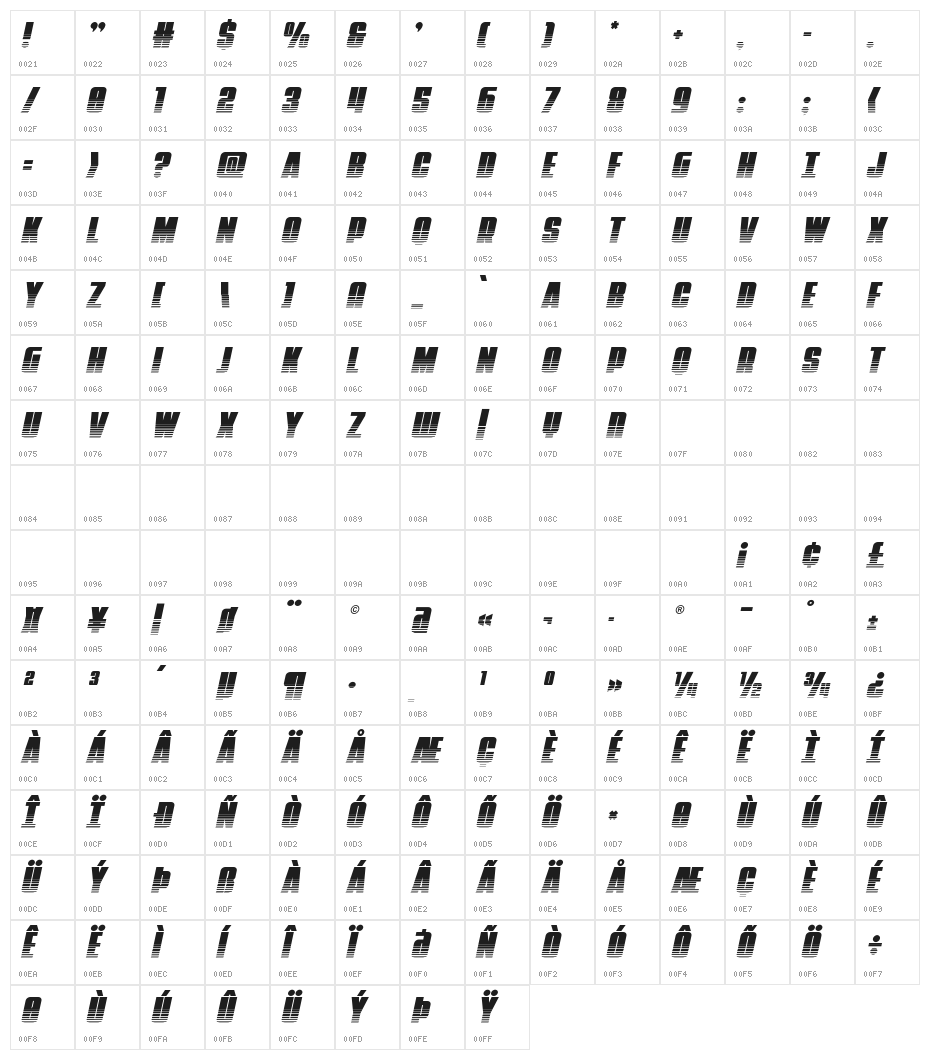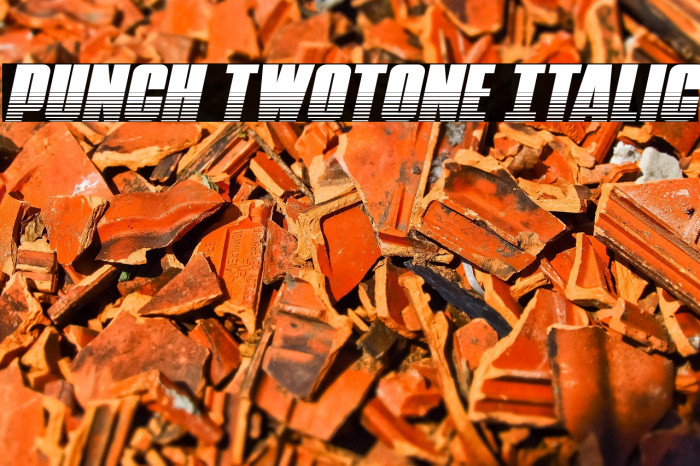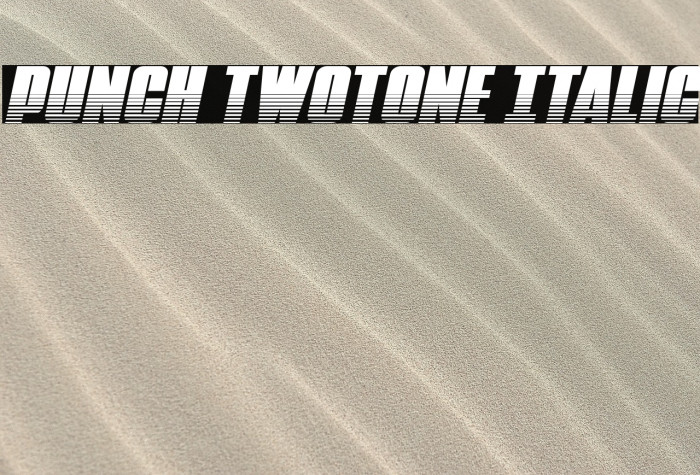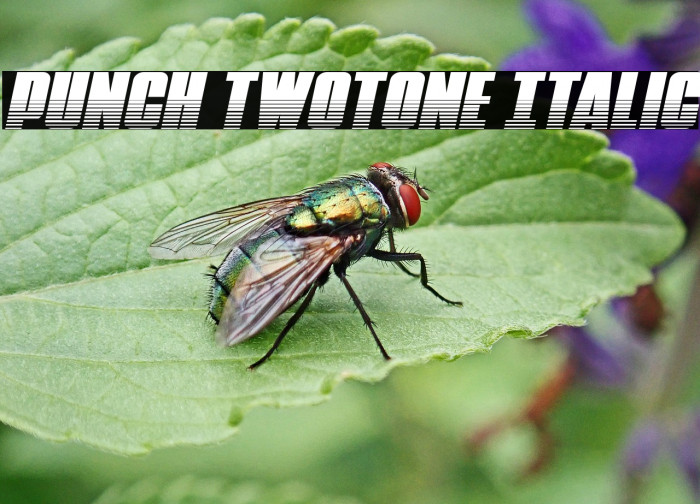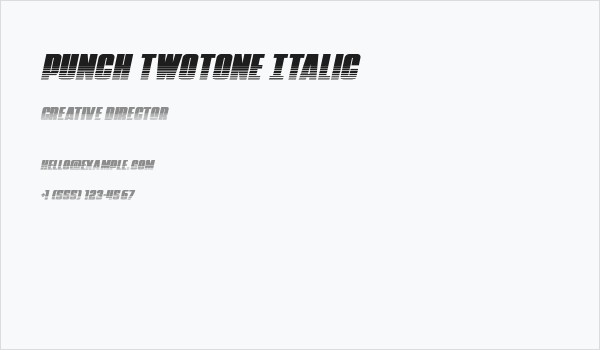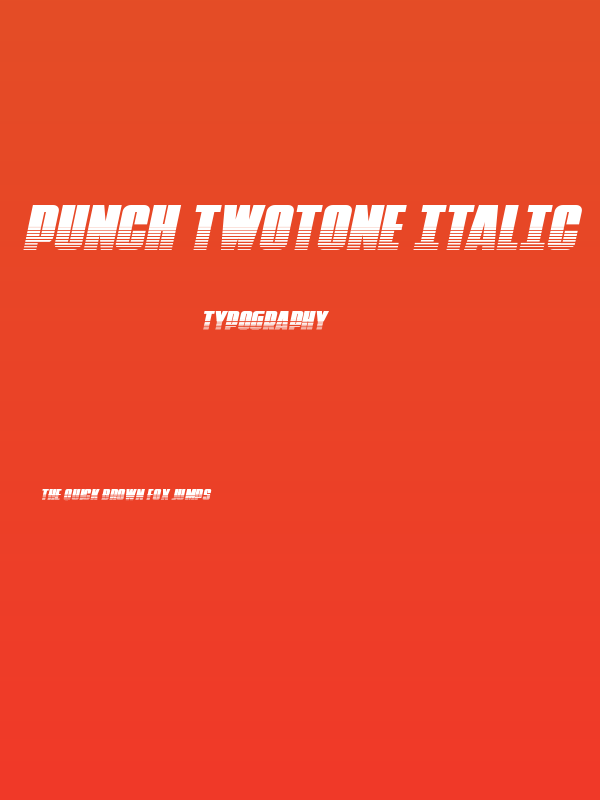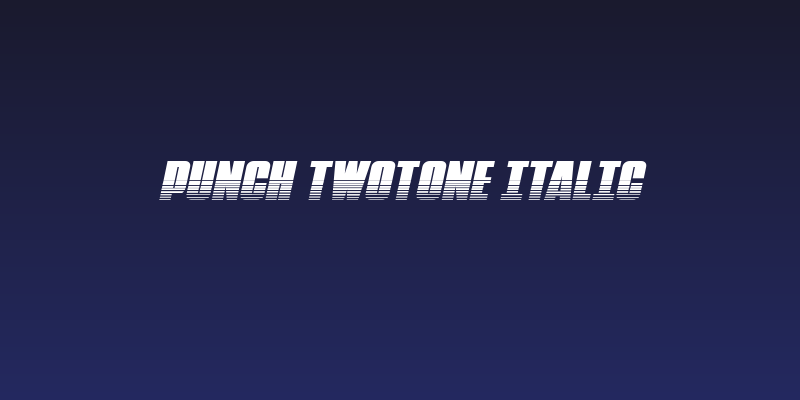
Punch Twotone Italic Font
Punch Twotone Italic Description
This font features a bold, dynamic style with a distinct two-tone effect that creates a sense of movement and energy. The italicized letters are slanted, enhancing the impression of speed and forward motion. The uppercase and lowercase characters, along with numerals and special symbols, are designed with a consistent gradient pattern that transitions from solid black to white stripes. This unique design element gives the font a modern, futuristic appearance, making it stand out in any design project. The characters are wide and have a strong presence, making them ideal for attention-grabbing headlines or logos.
| Proposed Projects | Ideal for sports branding, futuristic designs, dynamic posters, and eye-catching headlines. |